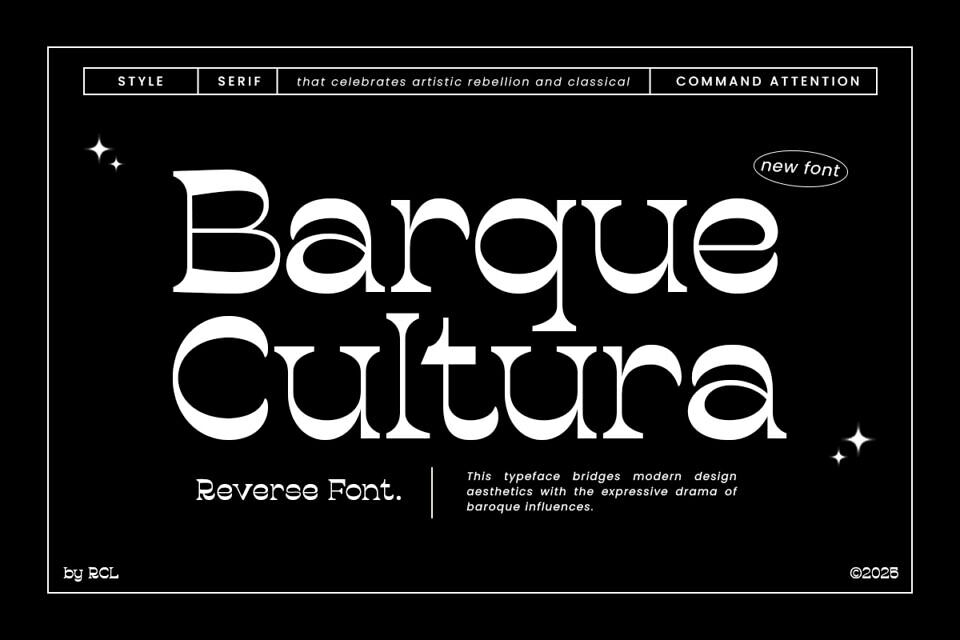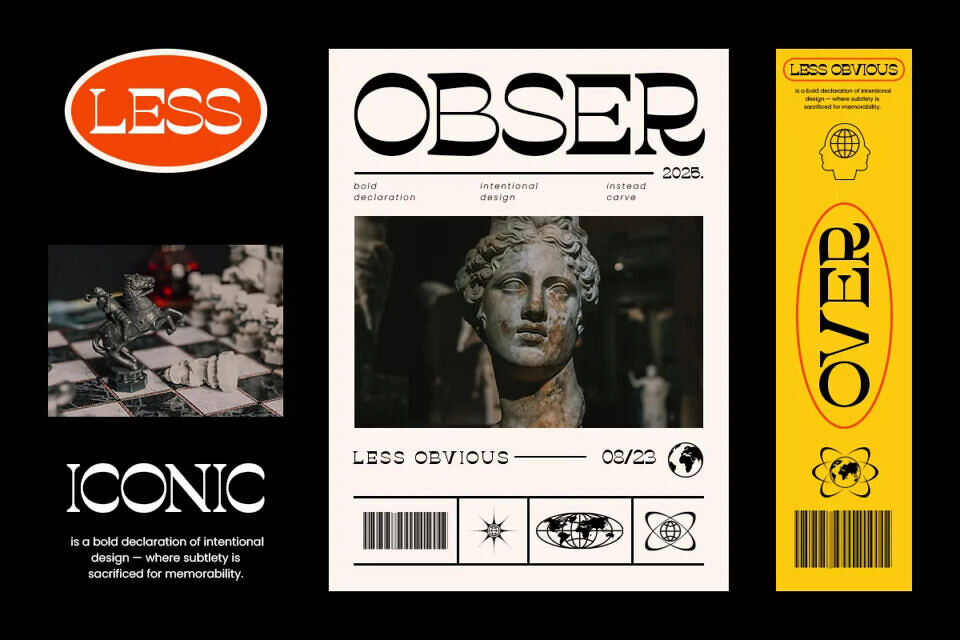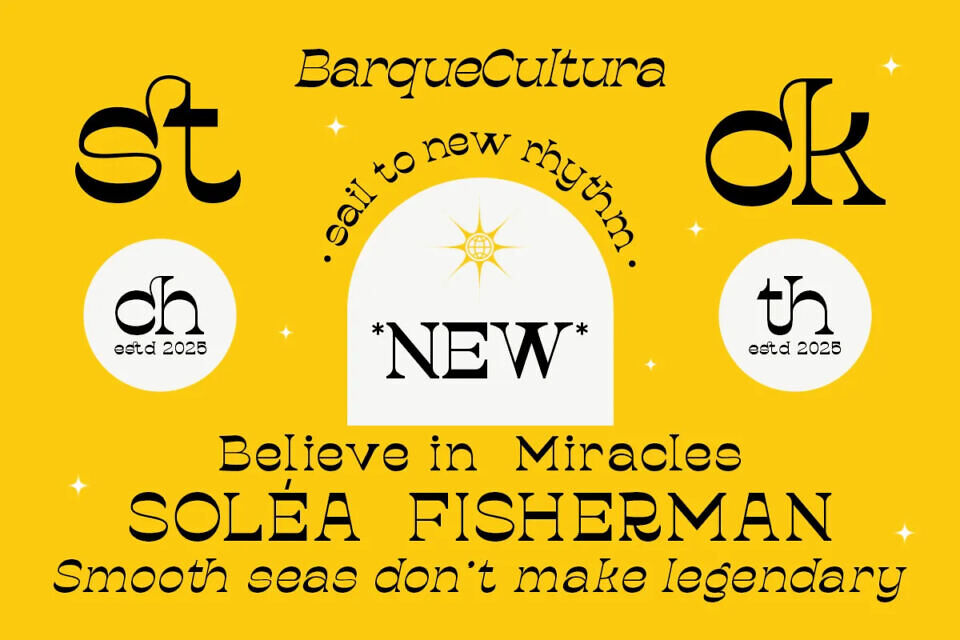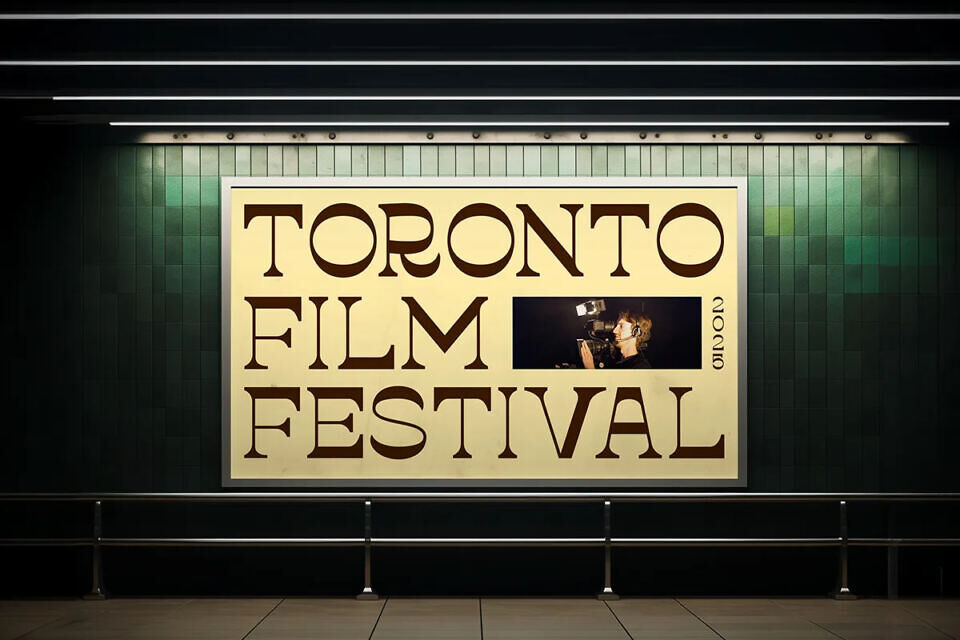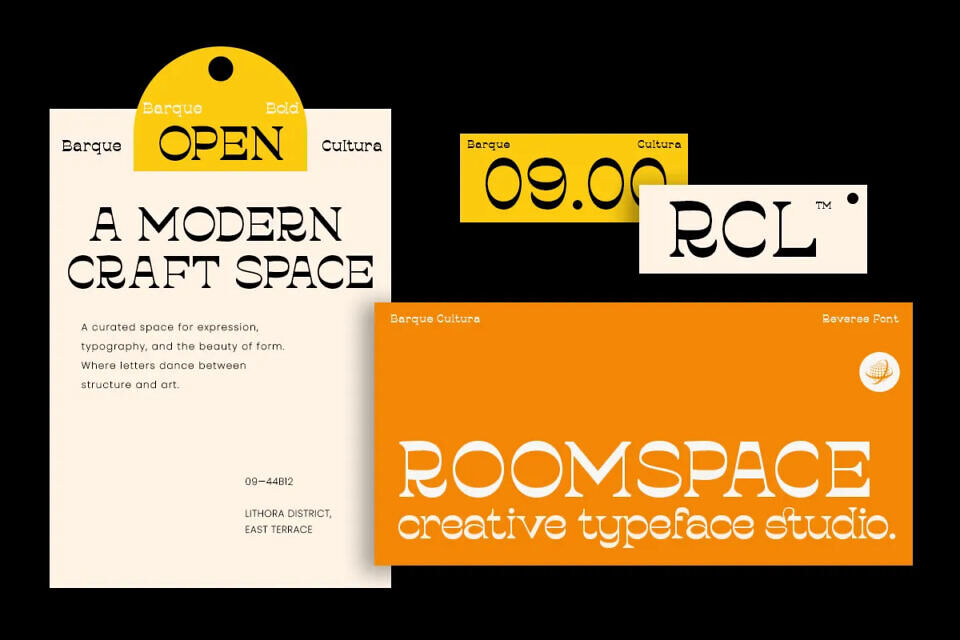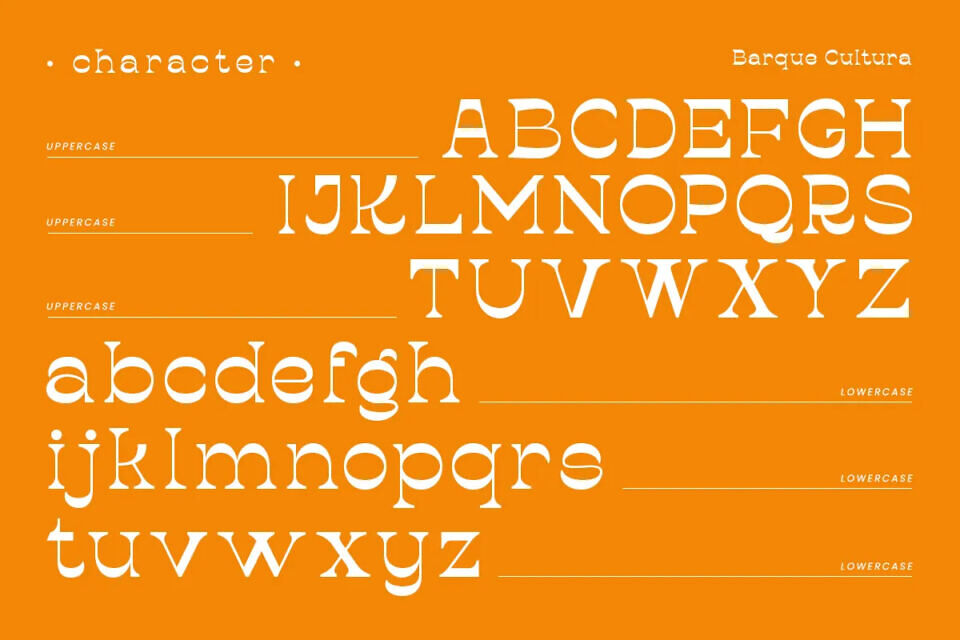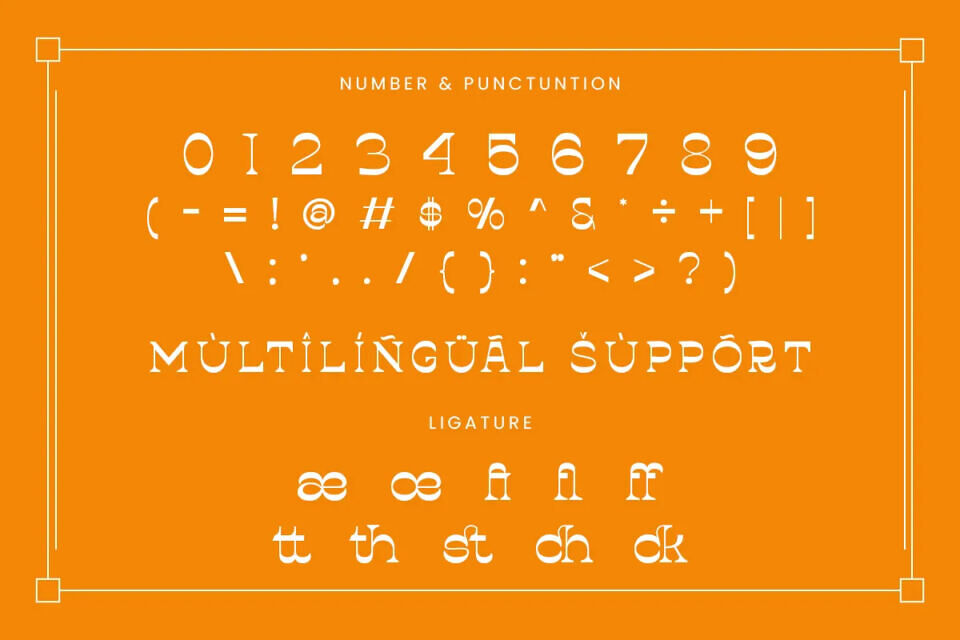
Barque Cultura Font
Barque Cultura is a bold modern serif display font where dramatic flair meets refined aesthetics. Barque Cultura draws inspiration from baroque elegance and cultural expressionism, featuring high contrast strokes, sculptural curves, and unconventional forms. This reverse serif typeface is designed to stand out perfect for making a statement in editorial layouts, fashion branding, cultural posters, and artistic identity systems.
Each glyph is carefully crafted to feel sophisticated yet experimental, making Barque Cultura ideal for designers seeking a font that blends classical richness with modern creativity. With both timeless elegance and contemporary rebellion in its DNA, this font brings drama and beauty to every composition.